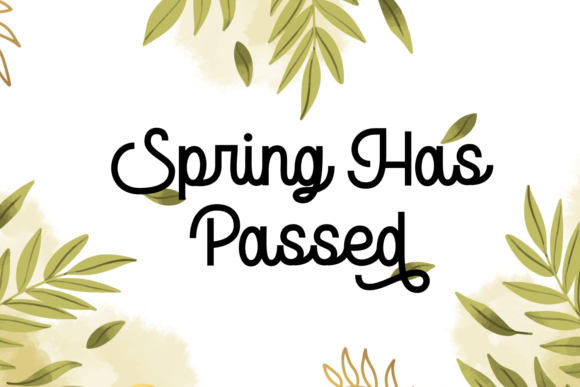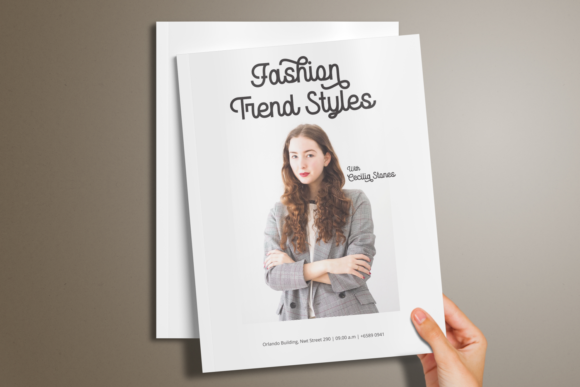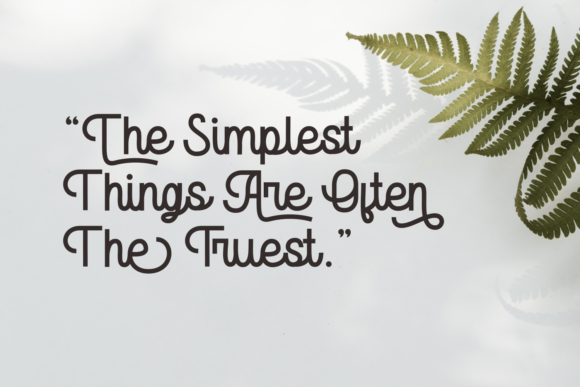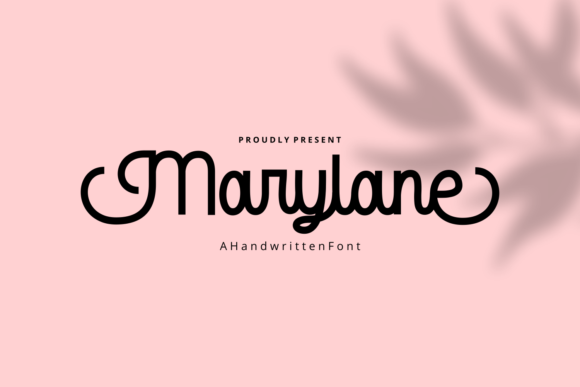
Introduction to Marylane Font
Marylane is a delicate and organic script font.
It will add a luxury spark to any design project that you wish to create This font is PUA encoded which means you can access all of the glyphs and swashes with ease.